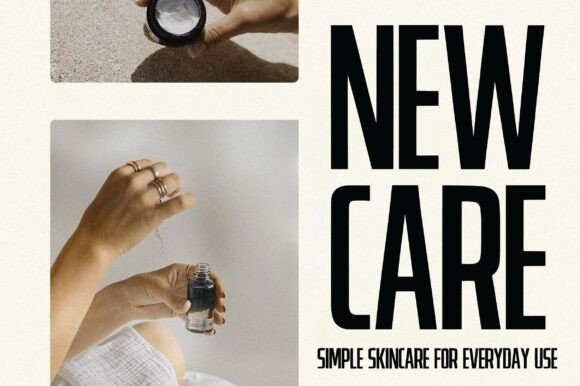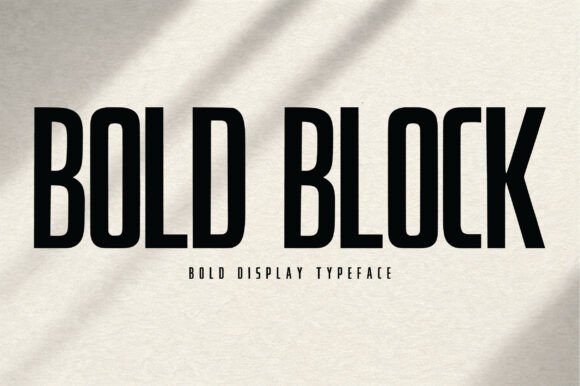
The Power of Bold Block: Elevate Your Designs with Confidence
I’ll never forget the time I was working on a branding project for a new coffee shop. My client wanted a bold, eye-catching logo that would stand out on a crowded high street. I spent hours scouring font libraries, but nothing seemed quite right. That was until I stumbled upon Bold Block, a game-changing typeface that instantly elevated my design. In this article, I’ll share my love for Bold Block, its features, and how to make the most of it in your creative projects.
An Honest Review of Bold Block
So, what makes Bold Block so special? Let’s dive into the good stuff and a few quirks I’ve discovered.
- ✅ Impactful and modern: Bold Block is designed to make a statement. Its tall letterforms and clean shapes exude confidence and clarity.
- ✅ Versatile: This typeface works beautifully for headlines, branding, posters, logos, packaging, and social media designs.
- ✅ Easy to read: Despite its bold nature, Bold Block remains surprisingly legible, even at smaller sizes.
- ⚠️ Limited use for body text: Bold Block is best suited for display purposes. Its boldness can be overwhelming for longer blocks of text.
- ⚠️ Glyph support: While Bold Block has an impressive range of glyphs, some users may find the OpenType features a bit limited.
The Story Behind Bold Block
Bold Block was designed with one goal in mind: to create a bold, modern typeface that would make a statement. Inspired by the clean lines and geometric shapes of urban landscapes, the designer aimed to craft a font that would exude confidence and clarity. While the real story behind Bold Block might be fictional, its impact on the design world is very real.
| What is Bold Block best used for? | Bold Block is perfect for headlines, branding, posters, logos, packaging, and social media designs. |
| Is Bold Block suitable for body text? | No, Bold Block is best suited for display purposes. Its boldness can be overwhelming for longer blocks of text. |
| Does Bold Block support OpenType features? | Yes, Bold Block has a range of OpenType features, including ligatures and stylistic alternates. |